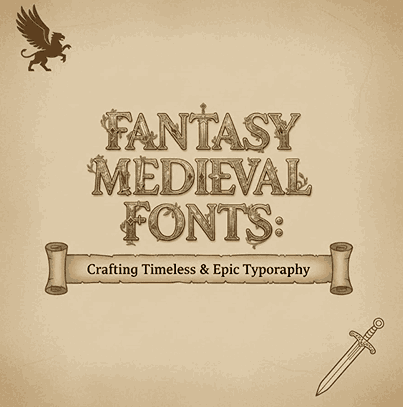
1. Introduction Fantasy Medieval Fonts
Fantasy Medieval Fonts worlds and medieval storytelling have captivated audiences for centuries. From epic novels and ancient manuscripts to modern movies and video games, the medieval aesthetic remains a powerful design trend—rich, dramatic, and full of historical charm. Because of this, Fantasy Medieval Fonts have become one of the most sought-after font styles among designers looking to create timeless, magical, or heroic visuals.
If you’re searching for fonts that embody the grandeur of ancient kingdoms, enchanted forests, noble warriors, or mythical creatures, this guide explores everything you need. We’ll also highlight the best medieval-style fonts from EdricStudio, complete with mockup links you can use in your blog or promotional materials.
2. What Are Fantasy Medieval Fonts?
Fantasy medieval fonts are typefaces inspired by European medieval calligraphy, manuscripts, gothic scripts, ancient carvings, and old-world lettering traditions. These fonts typically convey:
- History
- Power
- Mystery
- Royalty
- Magic
- Mythology
They are commonly used in fantasy movies, games, book covers, historical branding, and mythical-themed creative projects.
3. Why Fantasy Medieval Fonts Are So Popular in Modern Design?
Even though medieval lettering originates from ancient history, it remains highly popular today because:
✔ Fantasy media continues to dominate pop culture
From The Lord of the Rings to The Witcher to Game of Thrones, fantasy worlds always use medieval-inspired typography.
✔ Strong, dramatic identity Fantasy Medieval Fonts
These fonts immediately set a mood—mystical, powerful, legendary.
✔ Works great for branding and storytelling
They make logos and titles look more artistic and unforgettable.
✔ Rising popularity of indie Fantasy Medieval Fonts games & book self-publishing
Authors, game designers, and creators continue to demand medieval fonts.
4. Key Characteristics of Fantasy Medieval Fonts Typography
The medieval look is defined by several unique elements:
📌 Blackletter Strokes
Sharp, angular strokes resembling ancient calligraphy.
📌 Old-World Serif Forms
Serif elements soften the edges while keeping an authoritative tone.
📌 Dramatic Contrast
Thick and thin strokes that feel handcrafted.
📌 Decorative Elements
Swashes, ligatures, and flourishes that echo medieval manuscripts.
📌 Texture or Roughness
Some medieval fonts include rough or distressed texture for a historical feel.
Fantasy medieval fonts often blend gothic, Roman, Celtic, and fantasy elements for an enchanting aesthetic.
5. Best Fantasy Medieval Fonts (With Mockup Links)
Here are the top recommended fantasy medieval fonts from EdricStudio—perfect for your article and ideal for designers looking for bold, epic, or ancient-inspired typography.
5.1 Black Sting Blackletter Font
Black Sting is a strong gothic blackletter font, perfect for dark fantasy, medieval branding, heavy metal aesthetics, and epic title designs.
Why It’s Great for Fantasy Medieval Fonts Themes:
- Bold blackletter style
- Sharp, dramatic letterforms
- Perfect for dark fantasy and medieval culture
- Ideal for posters, book covers, game titles
Use it for:
✓ Fantasy RPG logos
✓ Medieval-themed merchandise
✓ Mythical character branding
✓ Historical event posters
5.2 The Empire Medieval Font
The Empire Medieval Font offers classic medieval elegance with a royal, ancient feel—ideal for grand fantasy titles or noble, kingdom-style branding.
Strengths:
- Strong historical character
- Smooth serif finish
- Great for fantasy epics and legends
- High readability despite decorative touches
Use it for:
✓ Historical branding
✓ Medieval festival designs
✓ Toy packaging
✓ Fantasy novel titles
5.3 Zorgeous Font
Zorgeous is a slab-serif display font with a gothic influence, giving it a mysterious and cinematic medieval look. It’s perfect for modern fantasy concepts and mixed-style designs.
Why It Stands Out:
- Unique slab + medieval fusion
- Great for vintage and historical layouts
- Strong presence in large titles
Use it for:
✓ Game covers
✓ Adventure movie posters
✓ Gothic fantasy artwork
✓ Logo branding
5.4 Blamber Font (Gothic Blackletter)
Blamber offers a refined blackletter style with modern touches, making it perfect for both classical and modern fantasy themes.
Perfect for fantasy magic themes.
9. Final Thoughts Fantasy Medieval Fonts
Fantasy Medieval Fonts bring ancient elegance, mystery, and epic storytelling to modern design. Whether you’re creating a fantasy book cover, game title, medieval-themed poster, or movie branding, the fonts from EdricStudio provide the perfect blend of authenticity and creativity.
From the dark gothic style of Black Sting to the classic elegance of The Empire Medieval Font and the cinematic energy of Zorgeous and Blamber, every font offers something unique for your artistic vision.